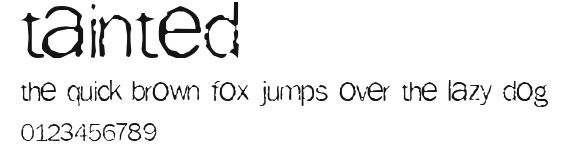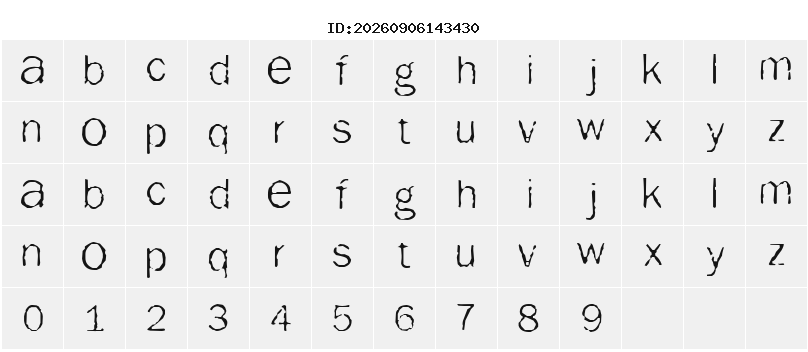
• Font Name: Tainted
• Full Font Name: Tainted
• PostScript Name: Tainted
About Tainted.ttf
Tainted.ttf is a modern, elegant sans-serif font designed for ultimate readability and visual harmony. Perfect for branding, headlines, web design, and print materials.